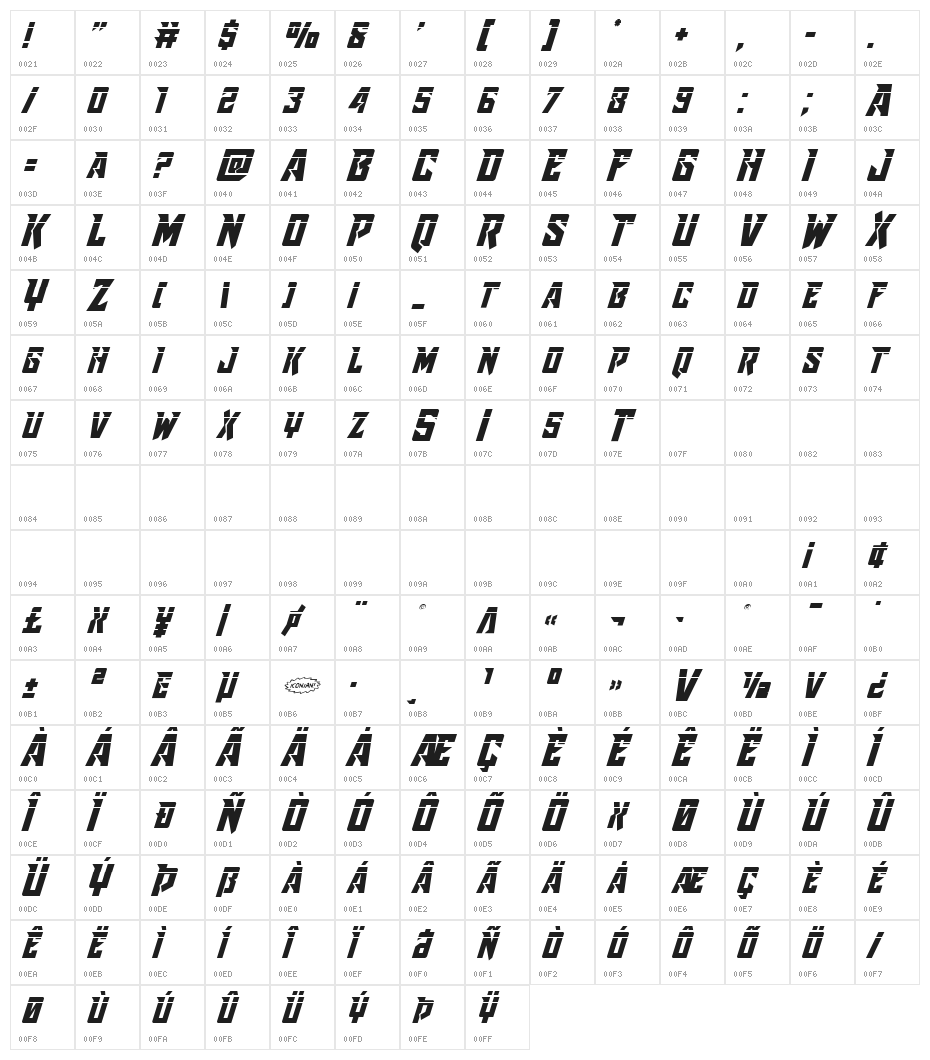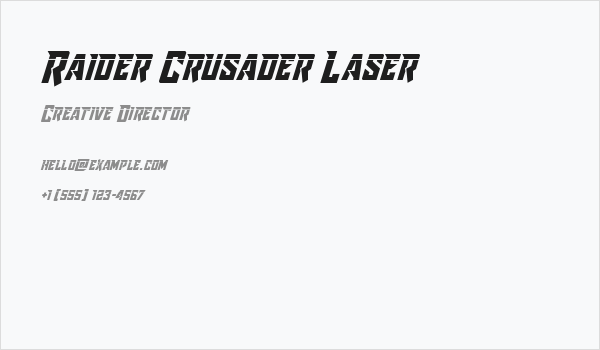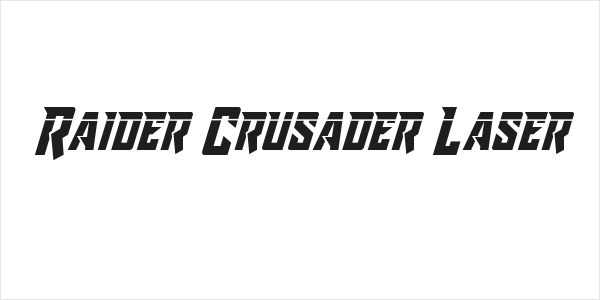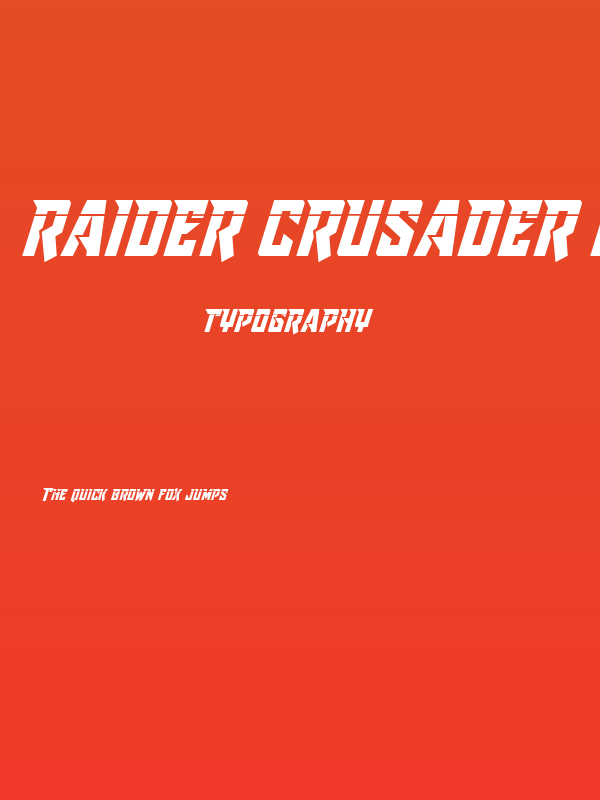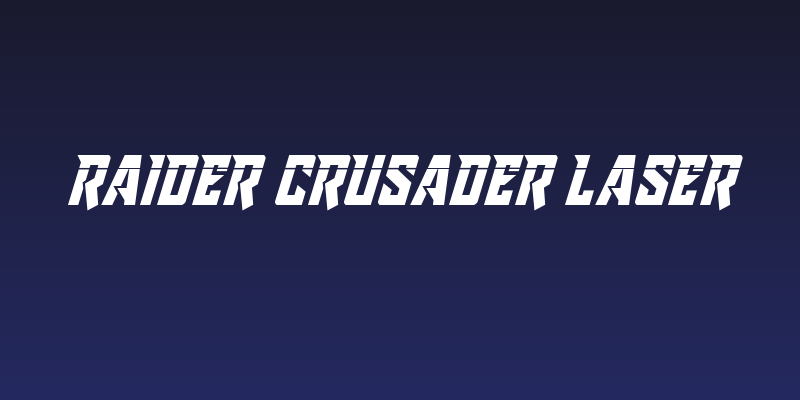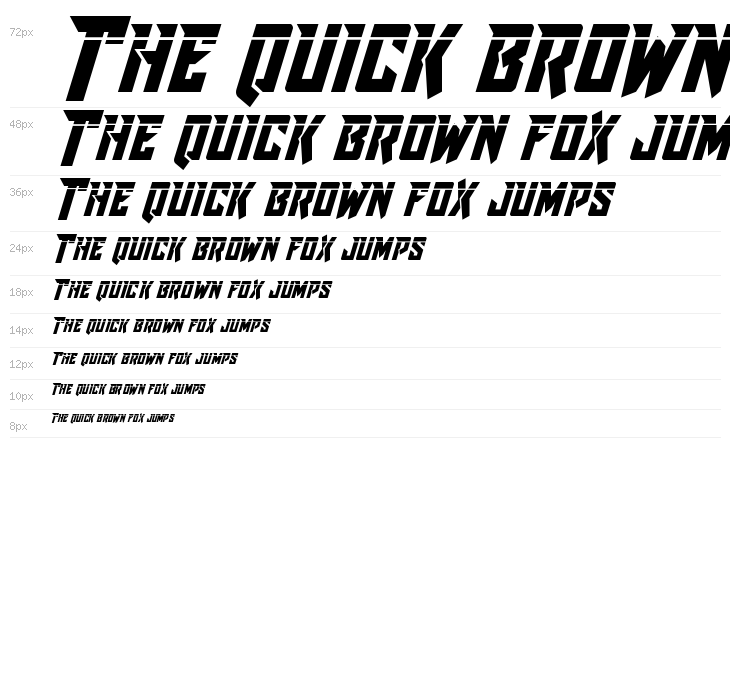
Raider Crusader Laser Font
Raider Crusader Laser Description
This font features a bold, angular design with a futuristic and aggressive aesthetic. The characters are sharply cut with dynamic angles, giving a sense of movement and energy. The uppercase letters are particularly striking, with a strong presence that commands attention. The lowercase letters maintain the same angular style, ensuring consistency throughout. Numbers and special characters are equally bold, making them suitable for impactful displays. The overall style is reminiscent of sci-fi and action themes, making it ideal for projects that require a strong, modern, and edgy look.
| Proposed Projects | Ideal for sci-fi movie posters, video game titles, sports team branding, and edgy graphic designs. |